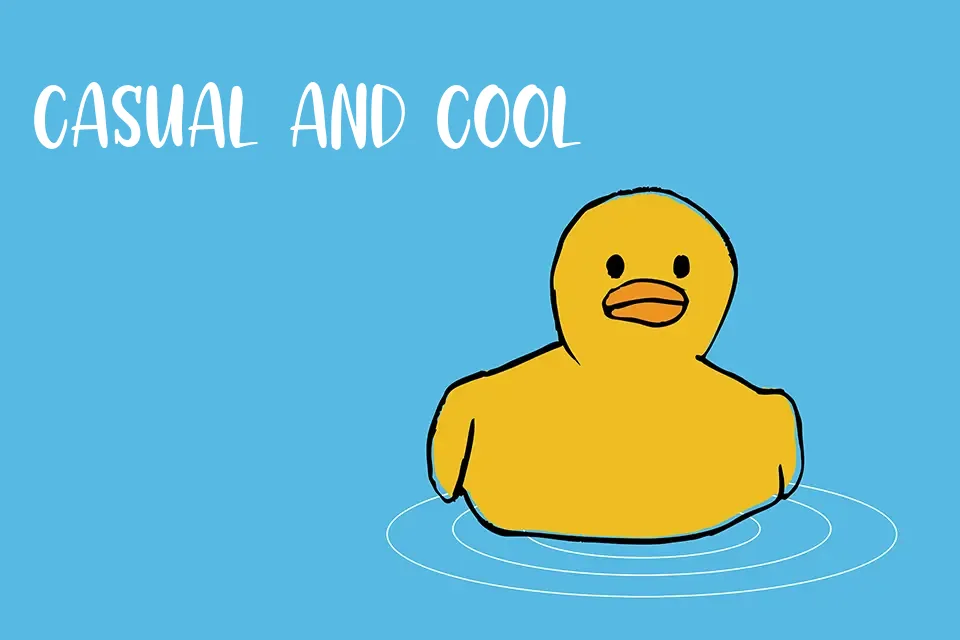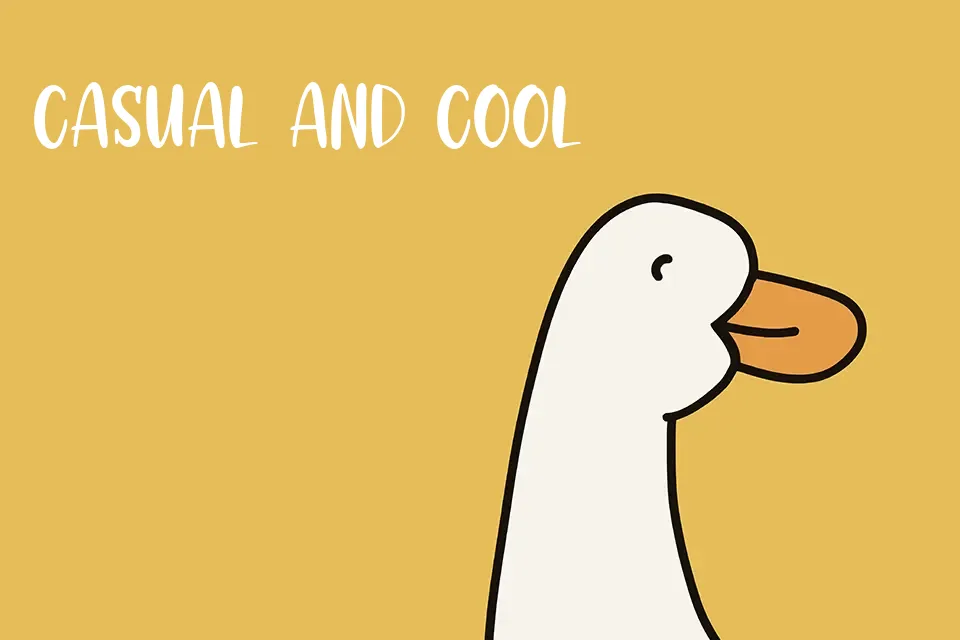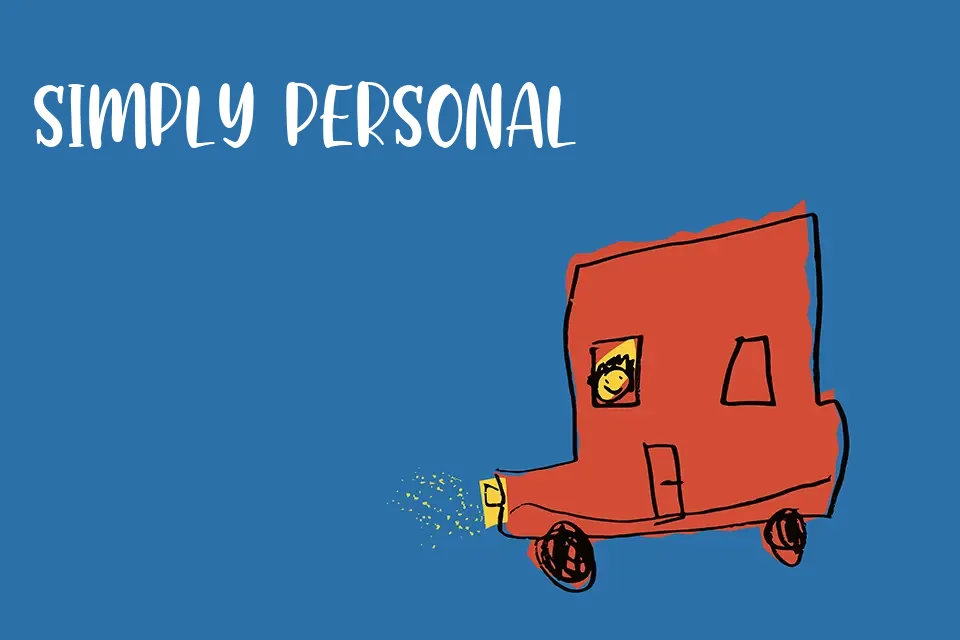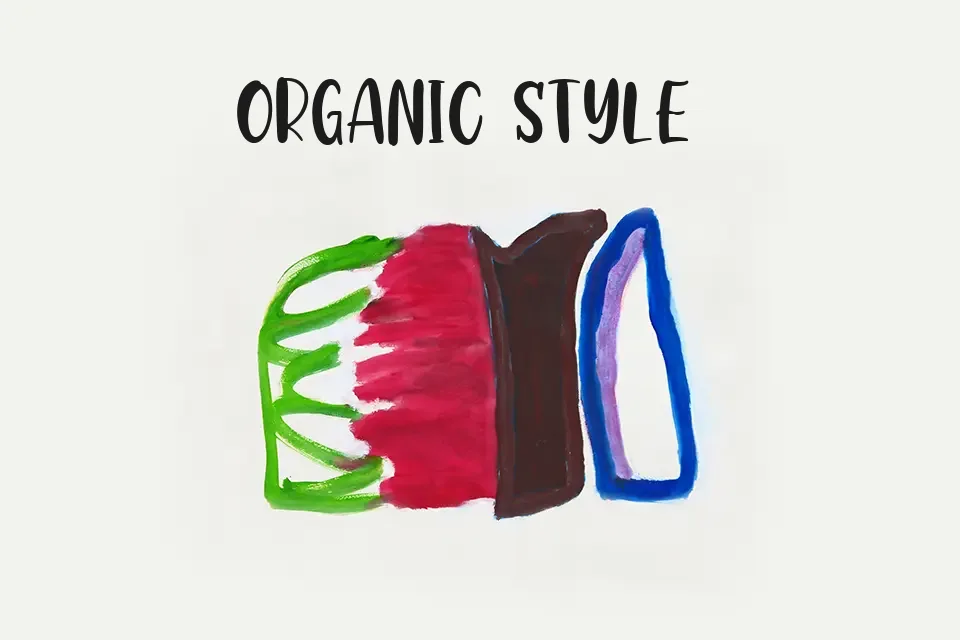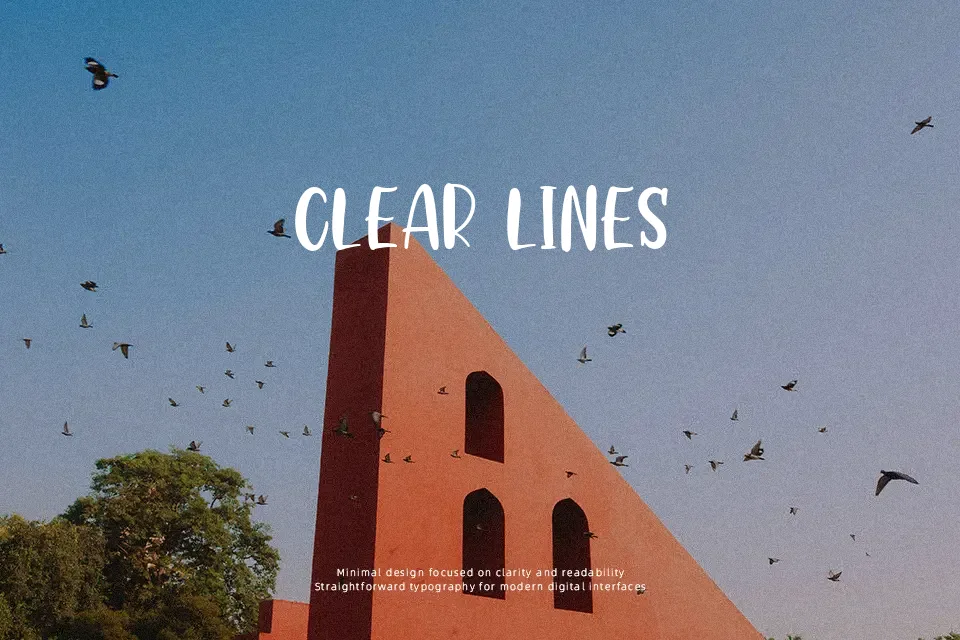
Babyque Font
Babyque carries thick, rounded brush strokes with a natural bounce in the baseline and loose letter spacing that feels unscripted rather than mechanical. The contrast between strokes is soft, giving each character a hand-painted warmth rather than a rigid graphic finish. It sits comfortably in children’s content — think kindergarten event flyers, kids’ birthday invitations, or playful product labels — where that informal energy reads as charming rather than careless. That same looseness, however, is its limitation: at small sizes or in dense text blocks, legibility drops quickly, making it a poor fit for anything requiring reading comfort. Use it large, give it room to breathe, and it delivers. Crowd it, and it loses its appeal fast.
Best For:- Children’s birthday party invitations and event flyers
– Kids’ product packaging and label design
– Social media graphics with a warm, playful tone
– Photography watermarks and branding for family-oriented businesses
Not Ideal For:- Body text or any paragraph-length copy
– Corporate or professional business materials
– Small-size use cases where stroke detail blurs
– Projects requiring multilingual scripts beyond Latin
Perfect for branding, invitation, and kids, with a cute and brush style.